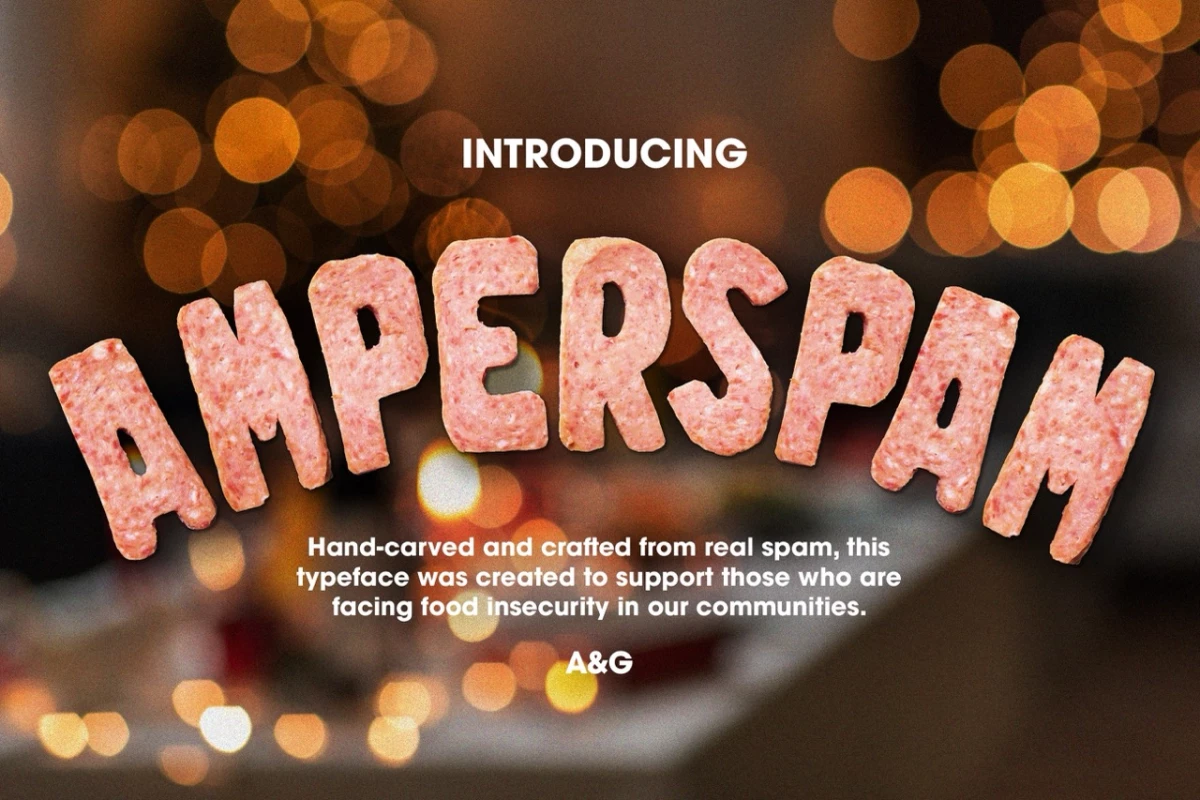
Creative agency A&G has turned holiday spam emails into a force for good with the launch of Amperspam, a unique typeface crafted from actual SPAM meat.
A&G’s Amperspam font isn’t just a playful holiday marketing campaign; it’s a carefully handcrafted initiative aimed at addressing a real-world problem.
The agency’s designers meticulously carved, photographed, and digitized slices of canned meat to create the typeface.
All proceeds from font sales will be donated, alongside a one-time contribution from A&G, to benefit local food pantries.
In an exclusive statement to DesignRush, the A&G team shared the process behind the campaign's development.
Jeff Marois, VP & creative director at A&G, said they wanted to have a little fun while also supporting some worthy causes, like TGBFB and Philabunance.
"The agency holiday card has long been a staple of the industry. But really, at the end of the day, we’re all just basically spamming our clients’ inboxes.
So we created a custom typeface out of spam [...] And of course, we wrote our holiday spam email in actual spam.”
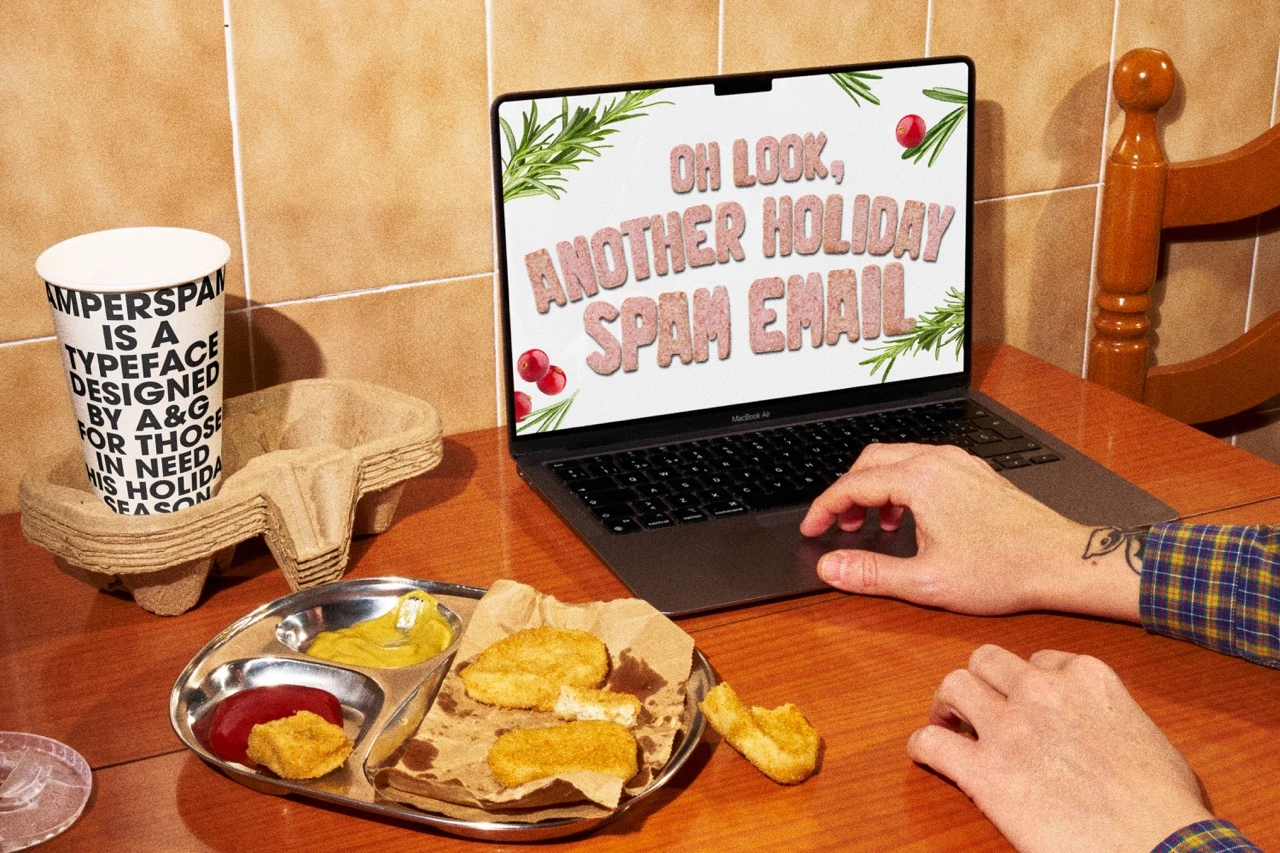
Meanwhile, A&G Senior Designer Lindsay Baker expounded on the hands-on process:
“We spent all day in our Third Space Studio cutting, measuring, and photographing perfectly imperfect spam slabs to create all custom letters and characters.
We brought those photos from the studio into Photoshop and ended up exporting out 50 characters to create our beautifully salted typeface. No spam was wasted in the making of the typeface.”
Creating a unique font this holiday season highlights the vital role of brand typography in conveying identity and emotion. It also sets a foundation for future marketing initiatives that can resonate with audiences on a deeper level.
Jessica Tran, an A&G associate studio artist, also shared the welcome challenge they faced while carving the SPAM:
“As everyone's so focused on AI, this was a really cool departure from that to actually handcraft and create a physical typeface.”
Beyond designing SPAM's new "salted, cured typography," A&G is one of many creative agencies committed to driving meaningful change through innovative campaigns.
Fighting Food Security with Creativity
Food insecurity affects millions across the U.S., particularly during the holidays. A&G’s initiative aligns with their broader commitment to charitable giving.
Since launching its employee-driven philanthropy program in 2023, the agency has donated over $33,000 to more than 60 organizations, including Black Girls Vote and Asian Americans Advancing Justice.
To spread holiday cheer and combat hunger this year, A&G invites everyone to:
- Create holiday messages using the typeface.
- Share with friends and family while encouraging them to join the effort.